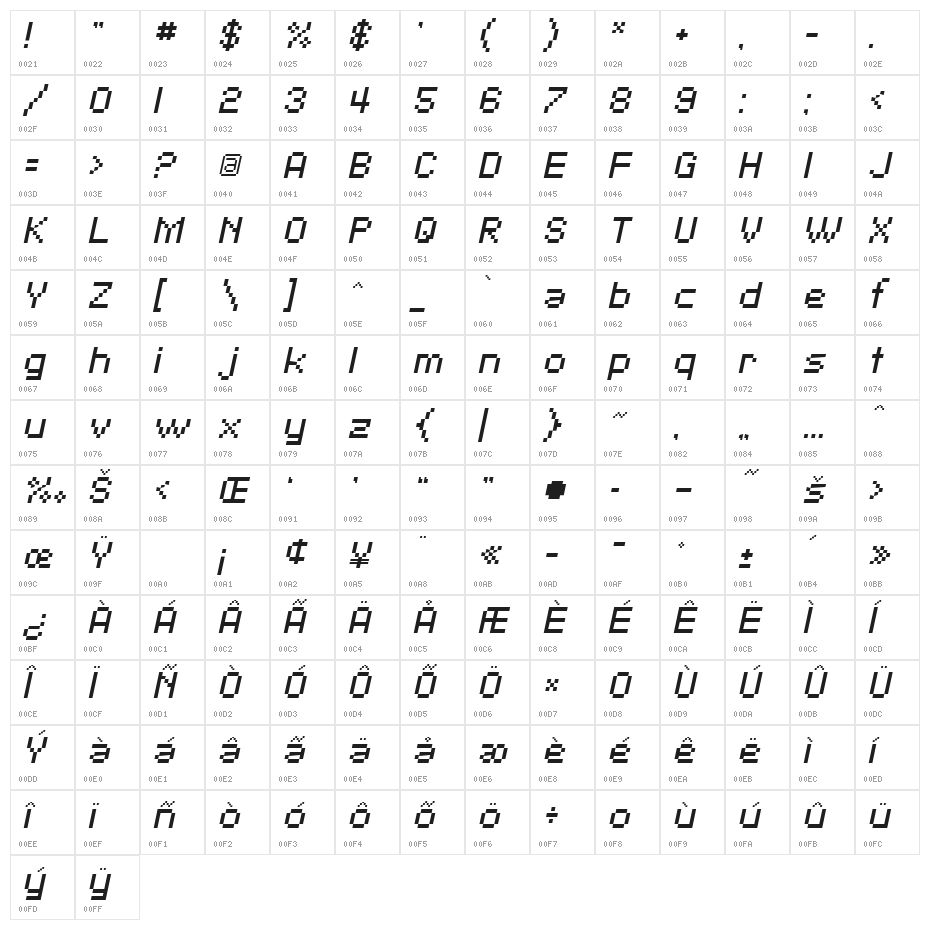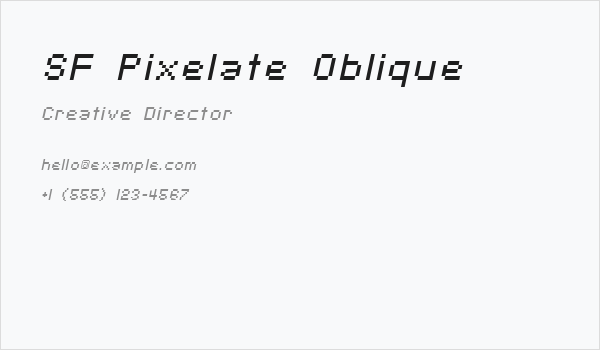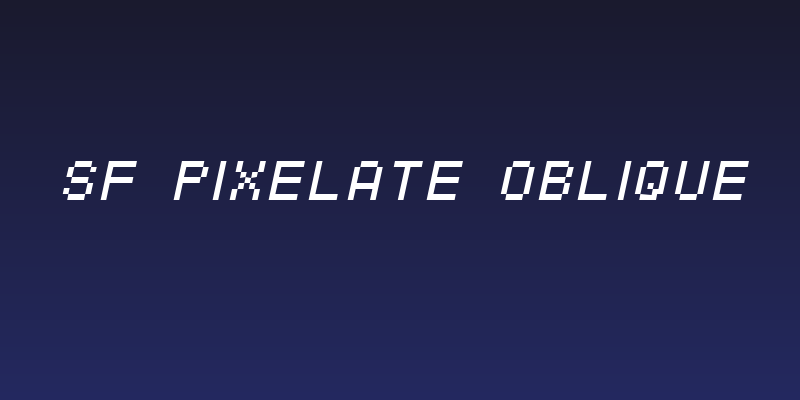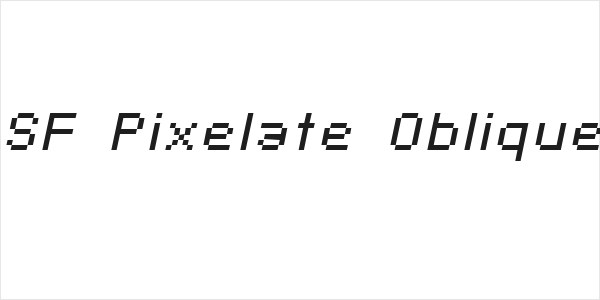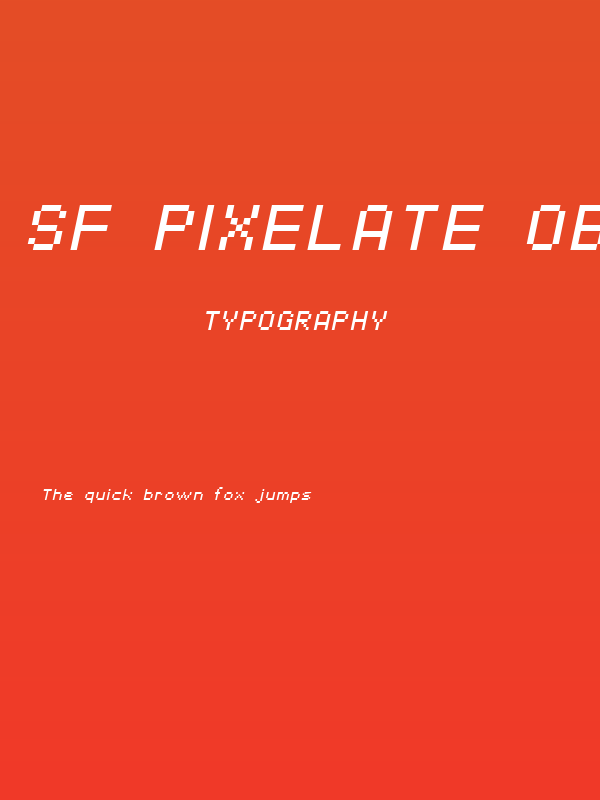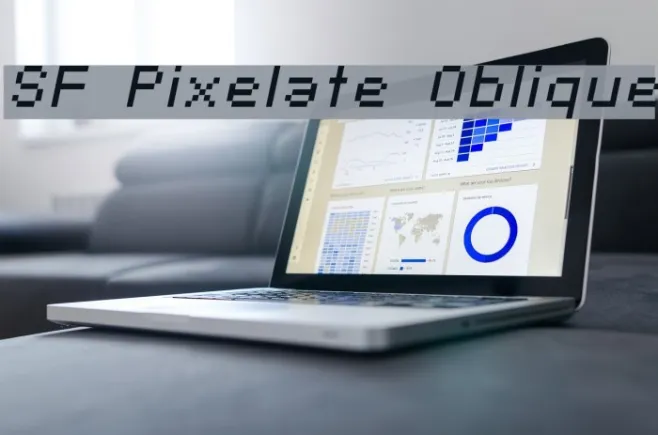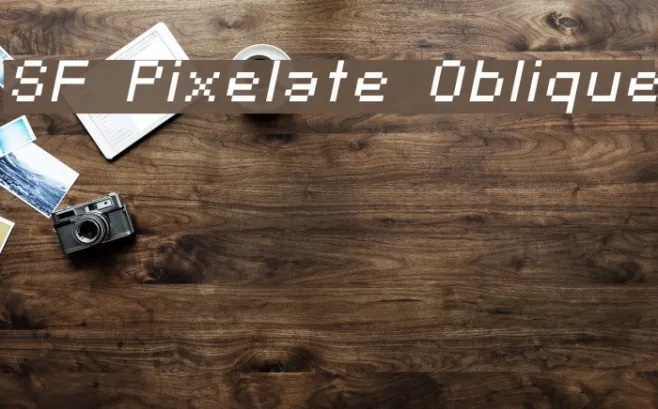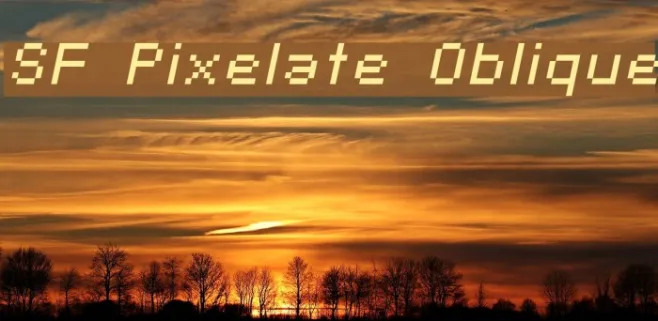
SF Pixelate Oblique Font
SF Pixelate Oblique Description
This font features a pixelated, oblique style that evokes a retro, digital aesthetic reminiscent of early computer graphics and video games. Each character is constructed with a blocky, grid-like pattern, giving it a distinctly angular appearance. The oblique slant adds a dynamic, forward-leaning energy, enhancing its modern, tech-inspired feel. The uppercase and lowercase letters maintain a consistent pixelated structure, while numerals and special characters follow the same design principles, ensuring uniformity across all glyphs. This font's unique style makes it ideal for projects that aim to capture a sense of nostalgia or a futuristic digital theme.
| Overall Style | Retro, Digital |
| Use Case | Headlines, Logos, Digital Art |
| Proposed Projects | Ideal for video game design, digital art projects, retro-themed posters, and tech-inspired branding. |